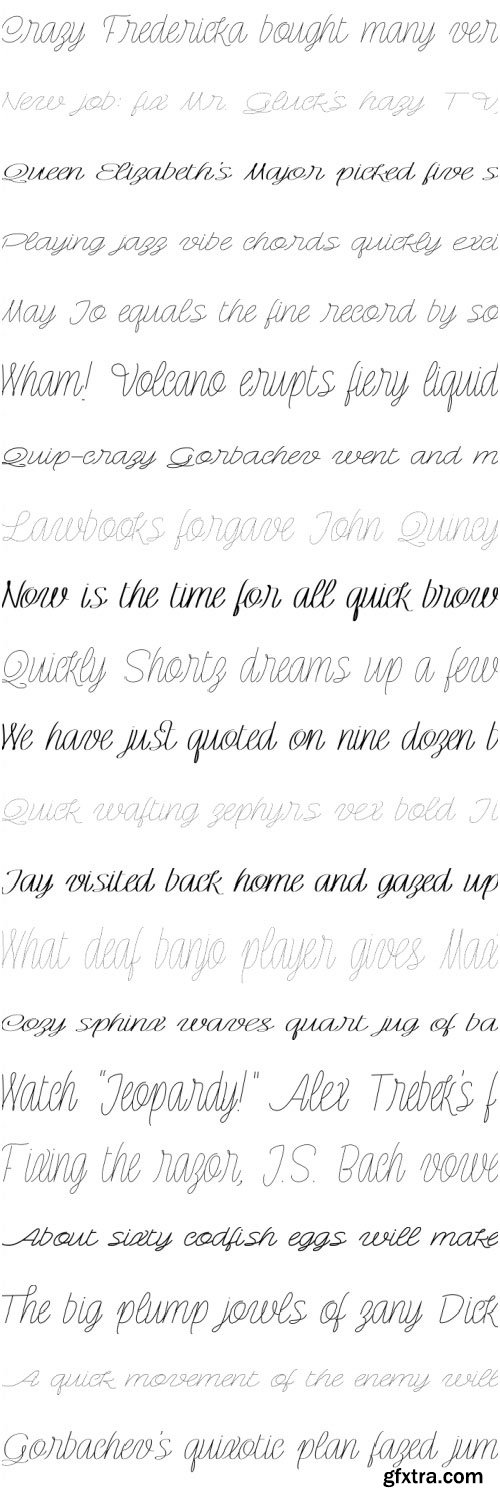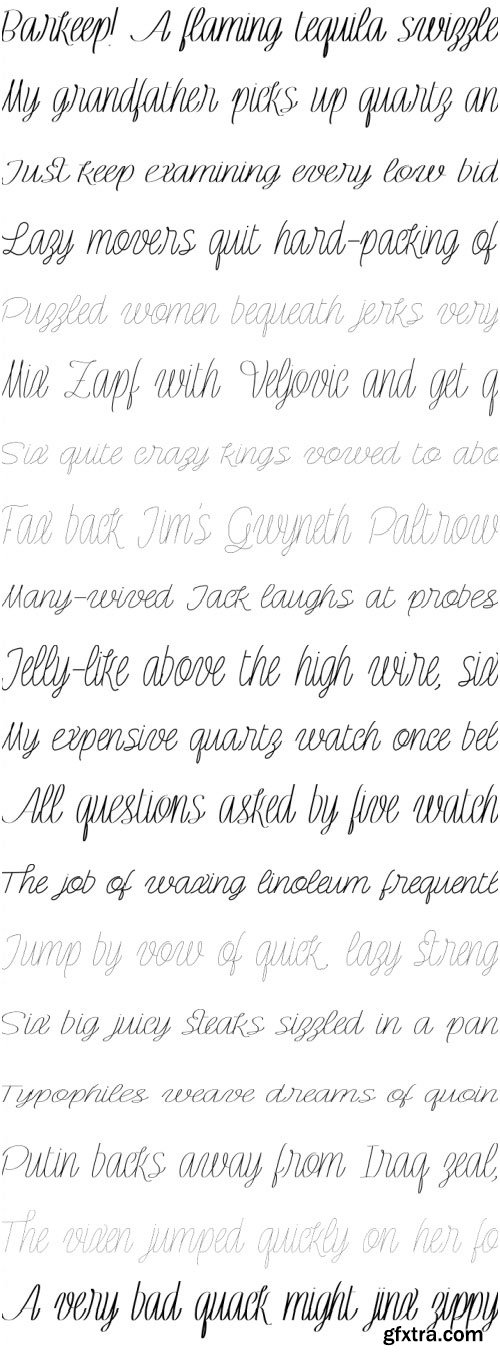
Rachele Font Family
- Rachele is a mono line based script thin font. Inspired on the cute “Italian Bella Scrittura” handwriting but influenced by Spencerian. Ornaments and ligatures make this hand more expressive offering round stroke endings and a flowing shape. Rachele is a big family, its stroke expand into extra light till medium and passing through a calligraphic/ribbon effect. At the same time the width varies, that’s make this script even more flexible, from Ultra Condensed to Super Extended. Enjoy it.